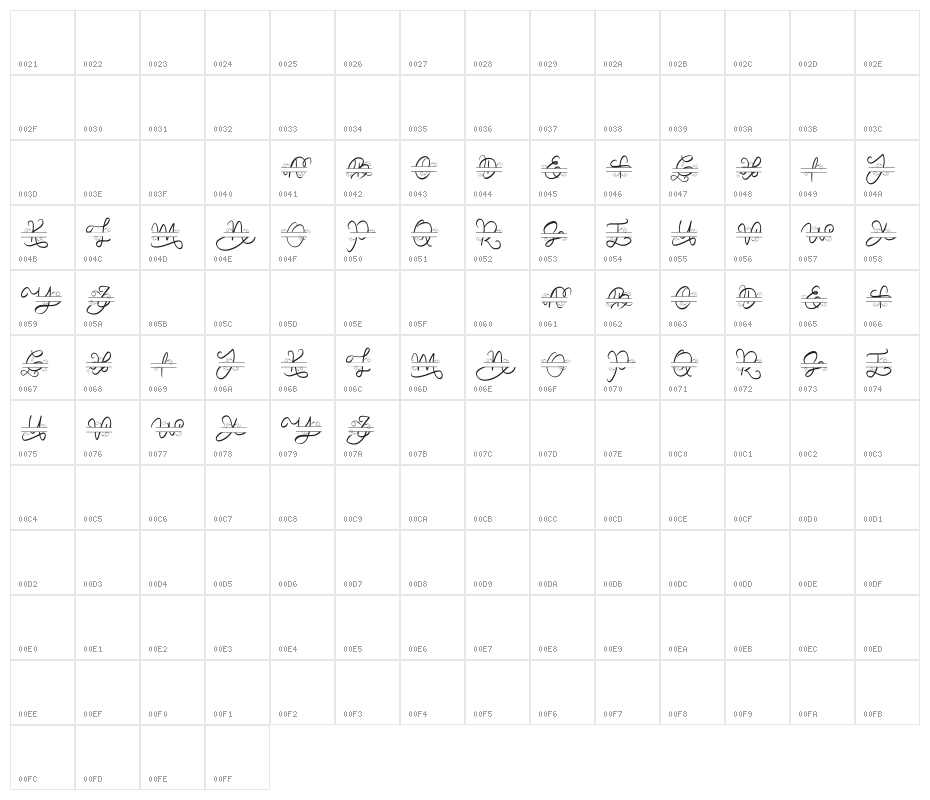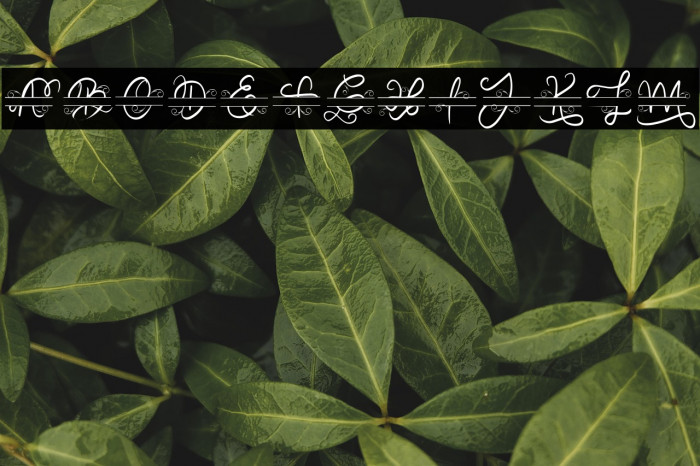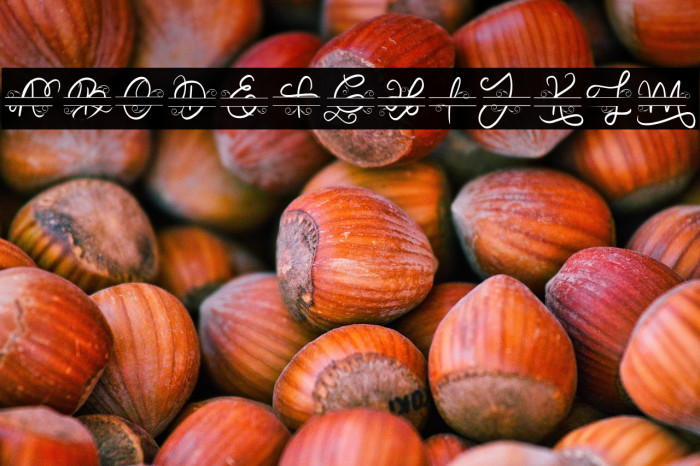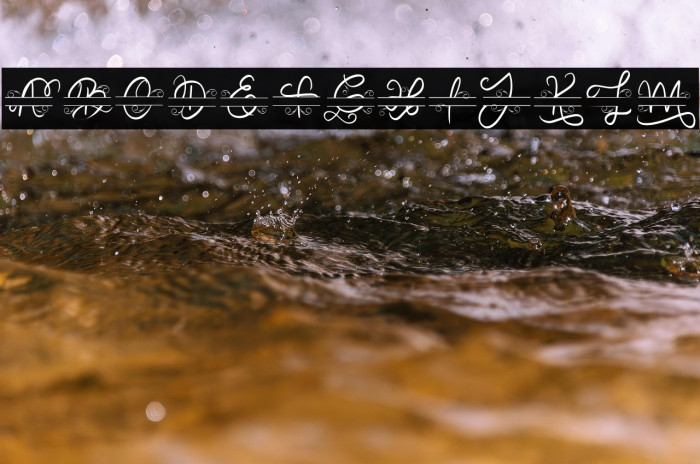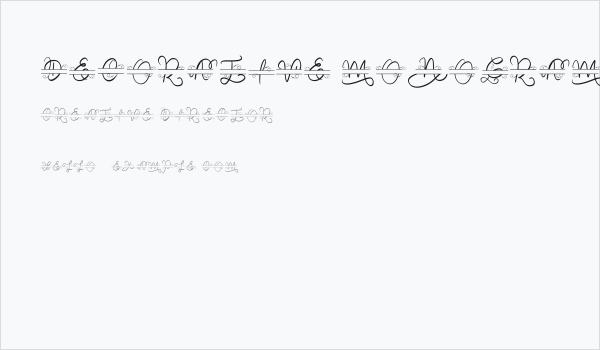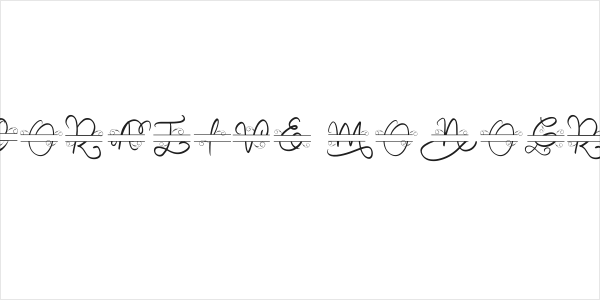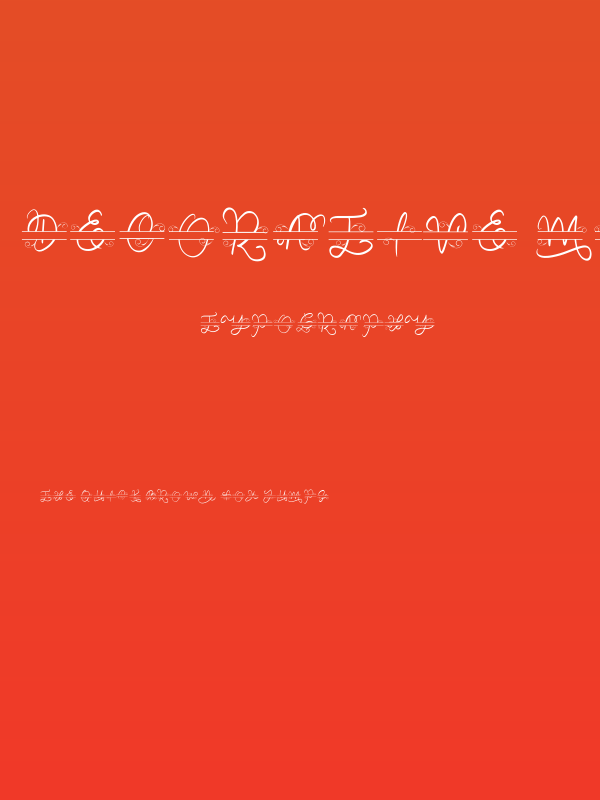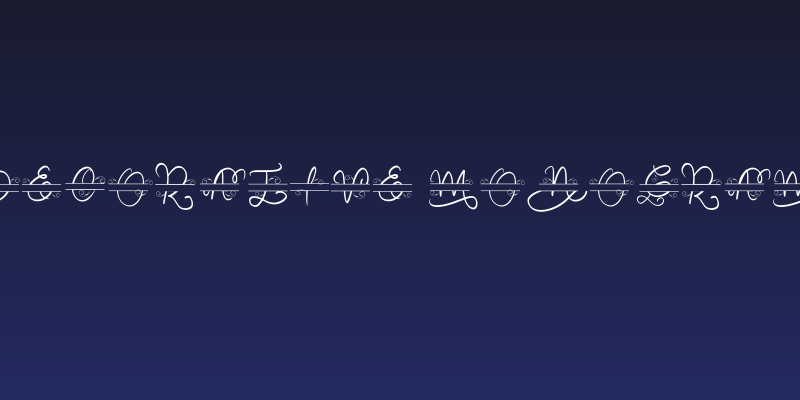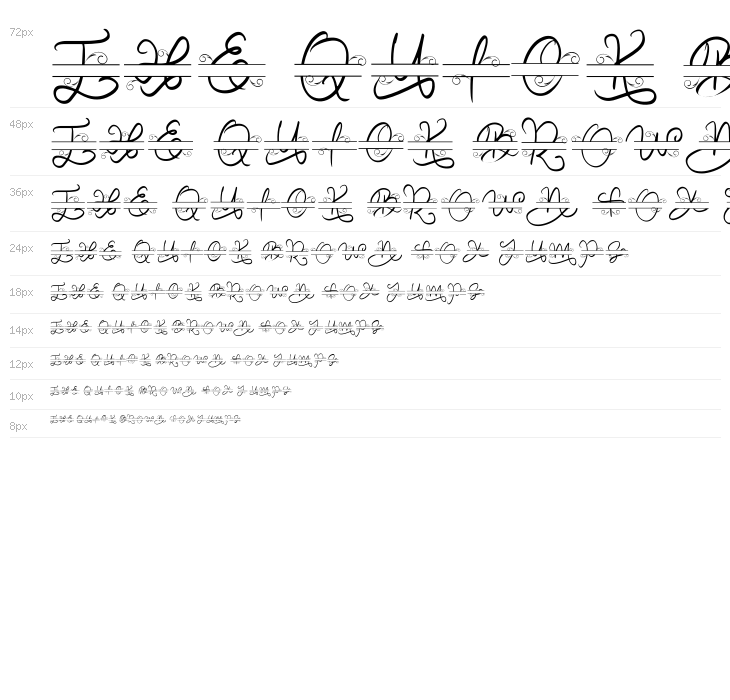
Decorative Monogram Font
Decorative Monogram Description
This font features an elaborate and decorative style, characterized by intricate swirls and flourishes that extend from each character. The design is reminiscent of classic monogram styles, with a strong emphasis on elegance and sophistication. Each letter is uniquely crafted, making it ideal for projects that require a touch of luxury and personalization. The font's ornate nature makes it suitable for special occasions and formal settings, where a sense of grandeur is desired. Its artistic flair is evident in the way each character is embellished, creating a visually captivating effect.
| Use Case | Logos, Invitations, Monograms |
| Proposed Projects | Ideal for wedding invitations, luxury branding, personalized stationery, and decorative monograms. |